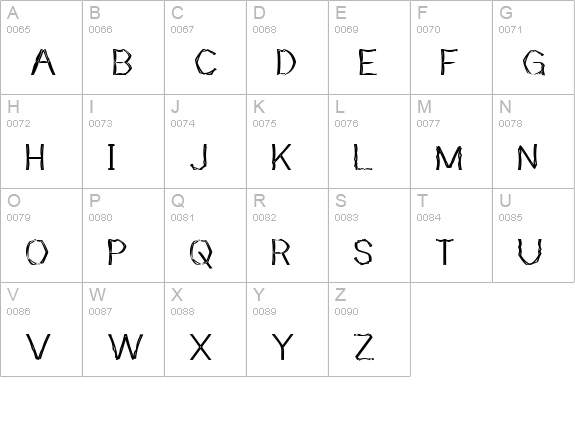
Mutant Bamboo II font is a unique and captivating typeface that combines the natural elegance of bamboo with a futuristic twist. Its distinctive design features organic shapes and bold lines, creating a striking visual impact. This font is perfect for adding a touch of creativity and originality to your projects, whether you're designing a logo, poster, or website. What makes Mutant Bamboo II font even more appealing is that it is available for free download at FontsMarket.com. By offering this font for free, it provides designers with an opportunity to experiment and explore its potential without any cost barrier. Embrace the creative possibilities that Mutant Bamboo II font offers and elevate your designs with its dynamic and innovative aesthetic.